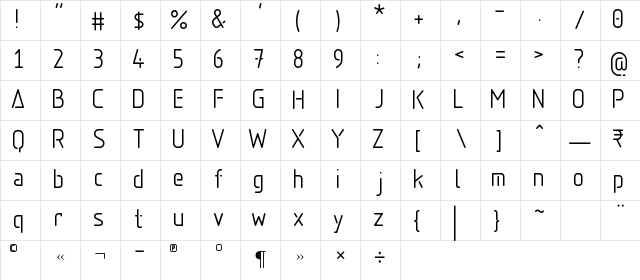
Aadhunik Light is a composed and adaptable typeface that performs quietly and consistently across a wide range of design contexts. Its slender proportions lend an understated elegance to any composition.